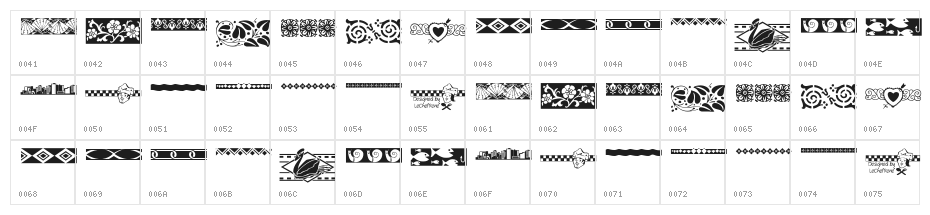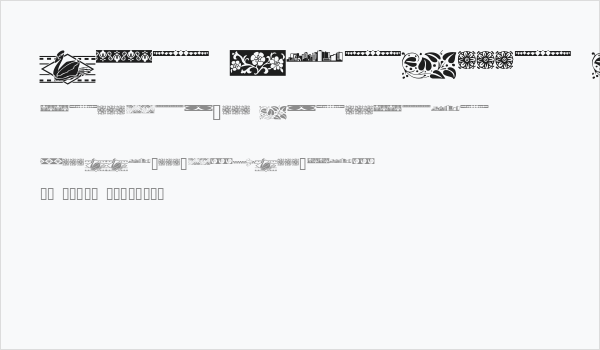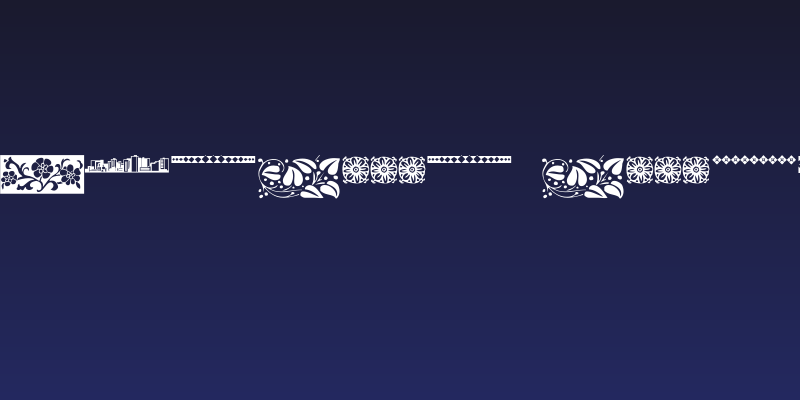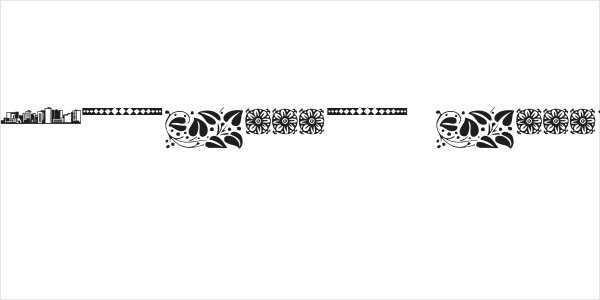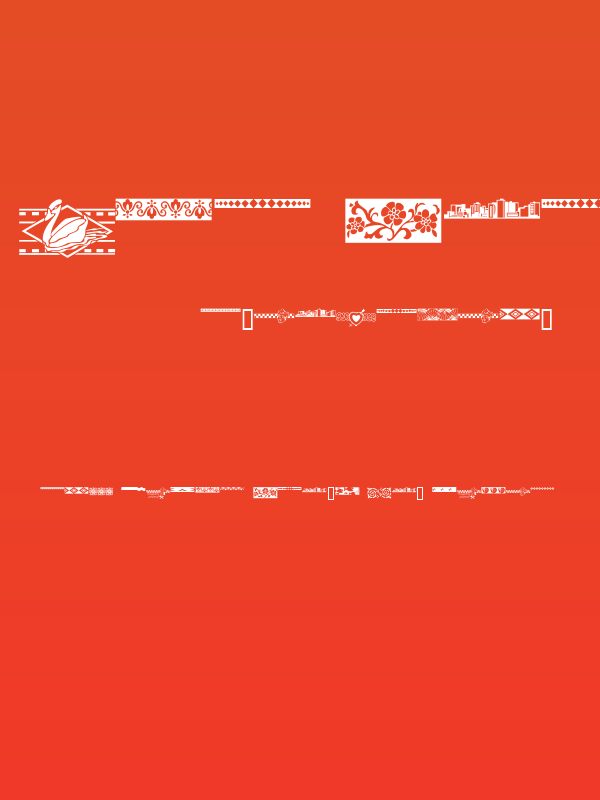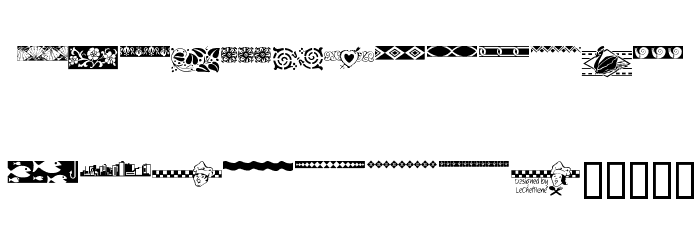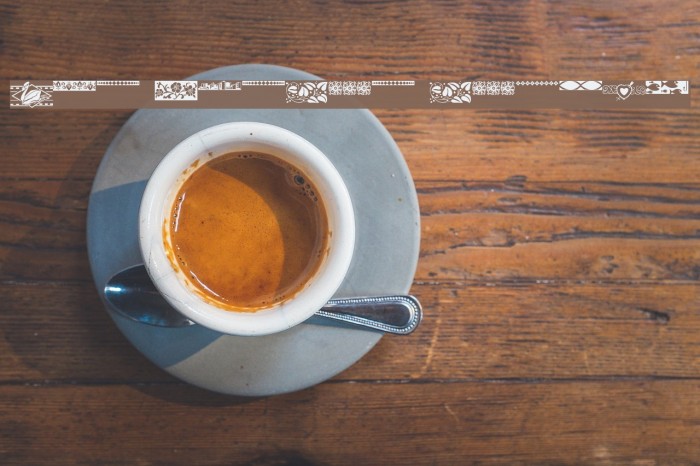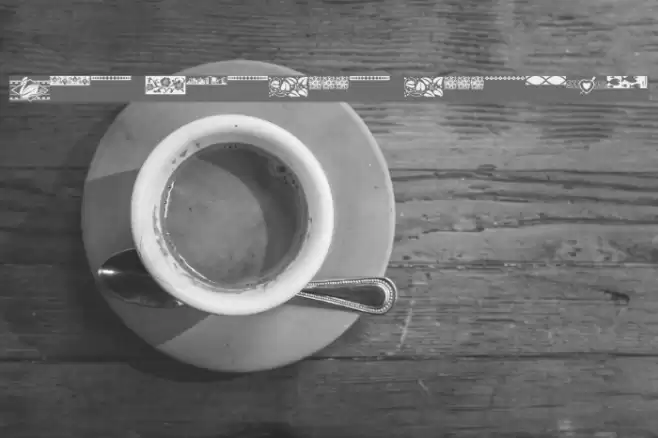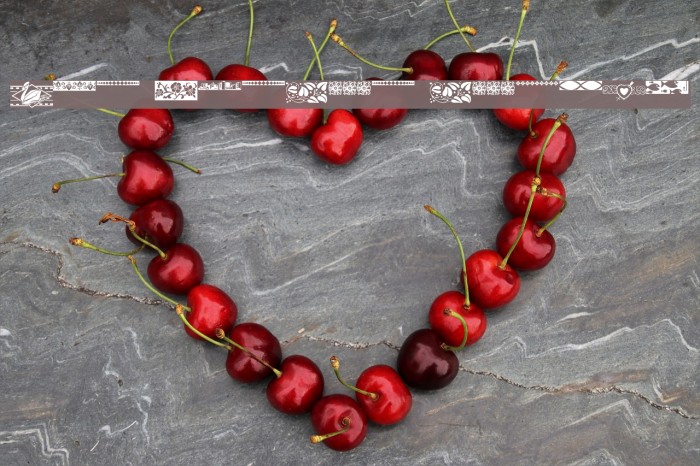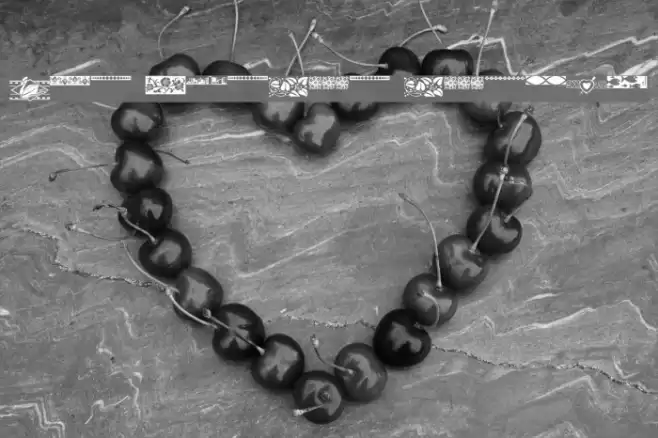
LCR Border Designz Font
LCR Border Designz Description
A decorative border and dingbat design set featuring a variety of intricate patterns, motifs, and illustrative elements such as fish, cityscapes, hearts, geometric shapes, and ornamental flourishes. The designs are monochrome, highly detailed, and intended for use as horizontal dividers or embellishments.
| Overall Style | Decorative, Ornamental |
| Use Case | Borders, Dividers, Decorative accents |
| Proposed Projects | Invitations, certificates, scrapbooking, decorative dividers in print or digital layouts, event programs, greeting cards. |